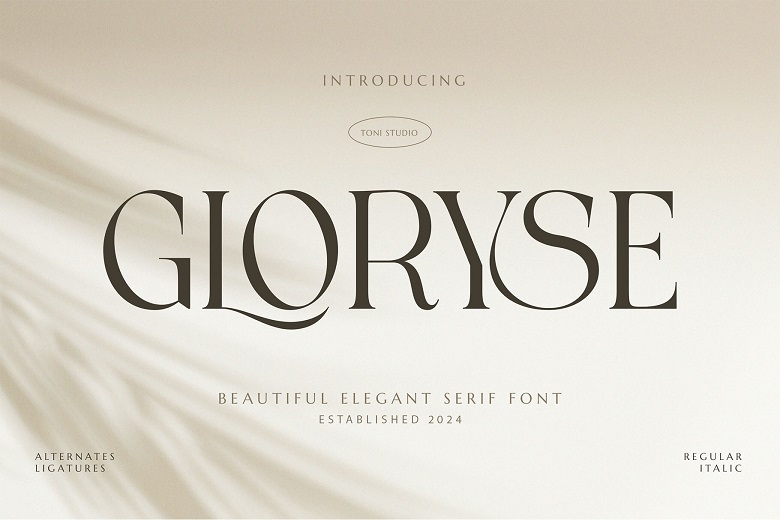
Gloryse Font
Introducing the new GLORYSE serif font !!!GLORYSE is sans-serif font, rather classy and stylish, making it suitable for sundry design related tasks, it provides splendid aesthetic balance. It is ideal for luxury logos and designs, editorial designs, women’s magazines, fashion and cosmetics brands, fashion and cosmetics promotions, contemporary advertising designs, invitations, art quotes, and home décor, book titles and covers, special occasions and events, and tote bags, advertisements and more.
Gloryse Serif Font